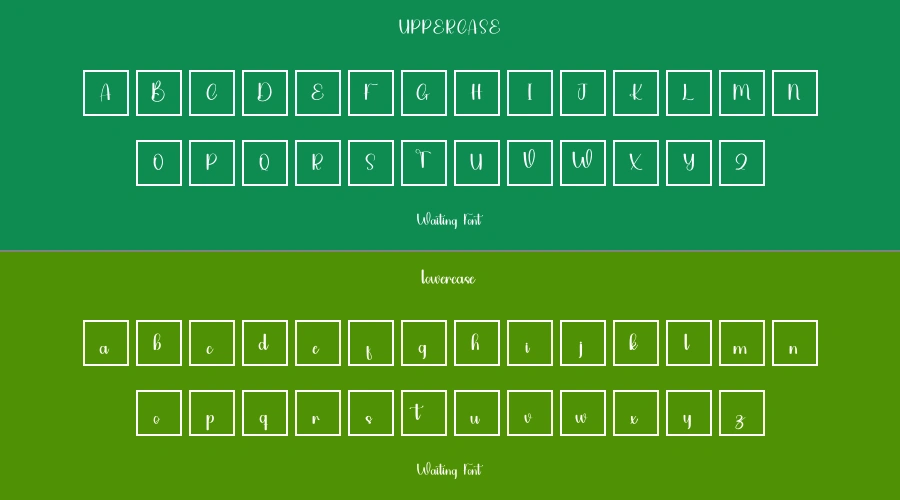
About Waiting Font
Waiting Font stands out for its distinctive combination of clean lines and signature style. Ideal for packaging hero, it provides the craftsmanship and user trust that professional projects demand. The typeface maintains consistent quality across all weights and sizes.
Key features include refined convex bowls and practical proportional figures, enhancing typographic expression. In brand manuals applications, Waiting Font demonstrates exceptional versatility. The ear placement and artistic merit contribute to its distinctive character and professional appeal.